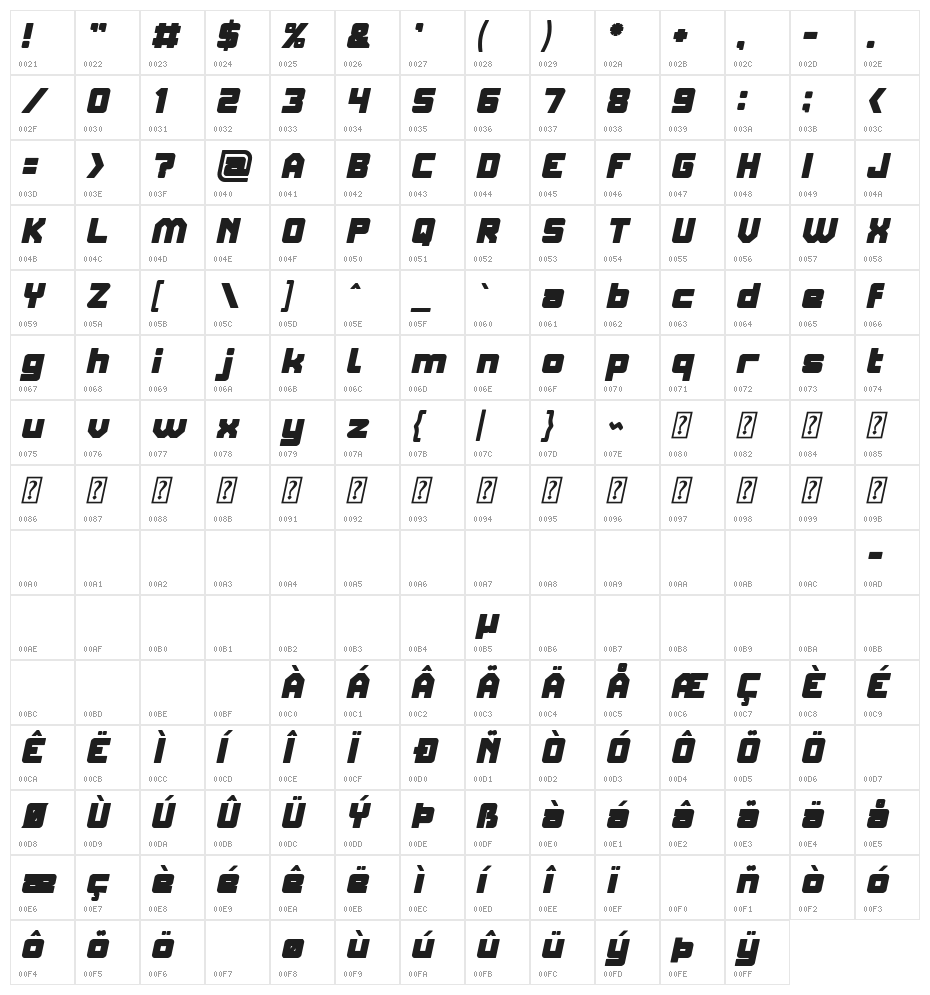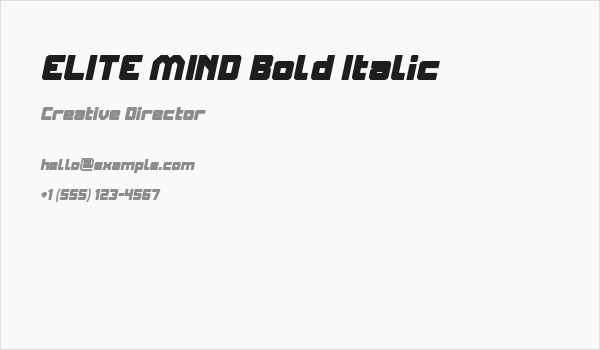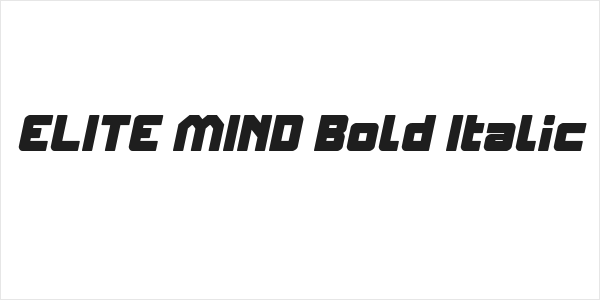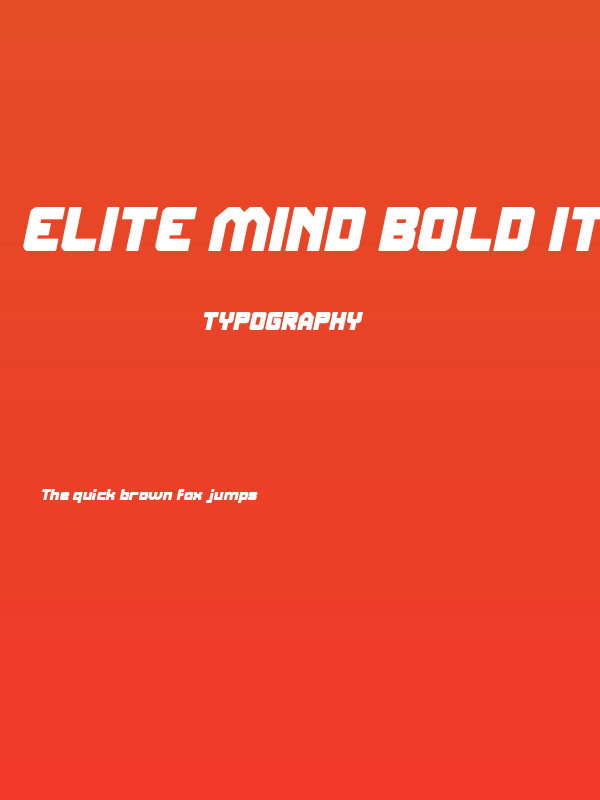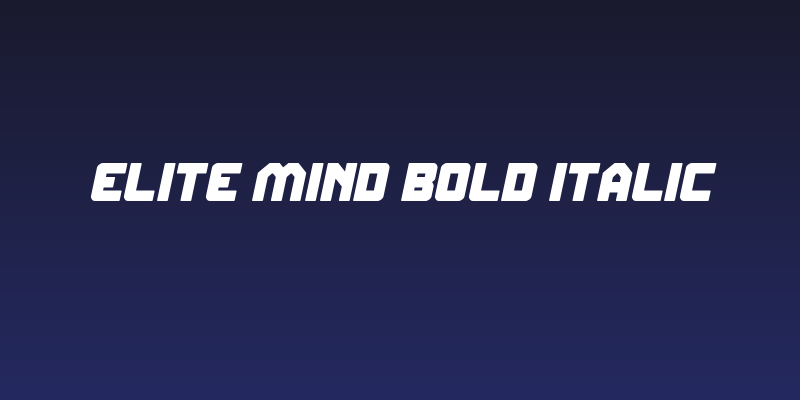
ELITE MIND Bold Italic Font
ELITE MIND Bold Italic Description
This font features a bold and italicized style with a strong, dynamic presence. The characters are slightly slanted, giving a sense of motion and energy. The strokes are thick and consistent, providing a robust and impactful appearance. The design is modern and sleek, with a futuristic edge that makes it suitable for attention-grabbing headlines and logos. The uppercase and lowercase letters maintain a uniform width, while the numbers and special characters are designed to complement the overall aesthetic. This font is ideal for projects that require a bold statement and a contemporary look.
| Proposed Projects | Ideal for branding, sports team logos, technology advertisements, and dynamic poster designs. |